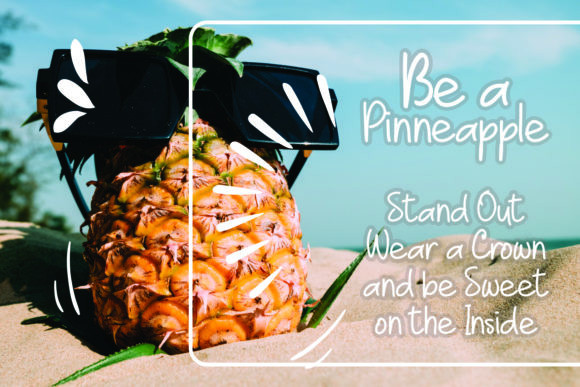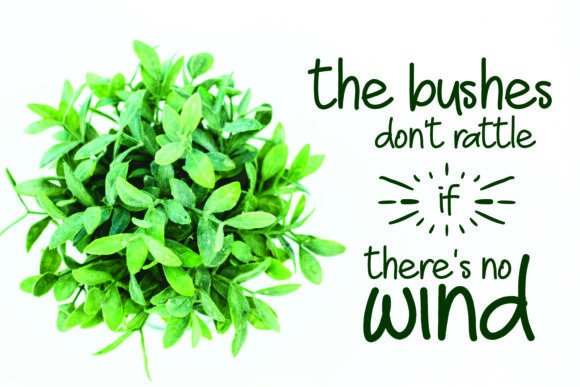
Summer Carnival Font
Summer Carnival is a sweet and friendly handwritten font. Its natural and unique style makes it incredibly fitting to a large pool of designs. The only limit is your imagination!